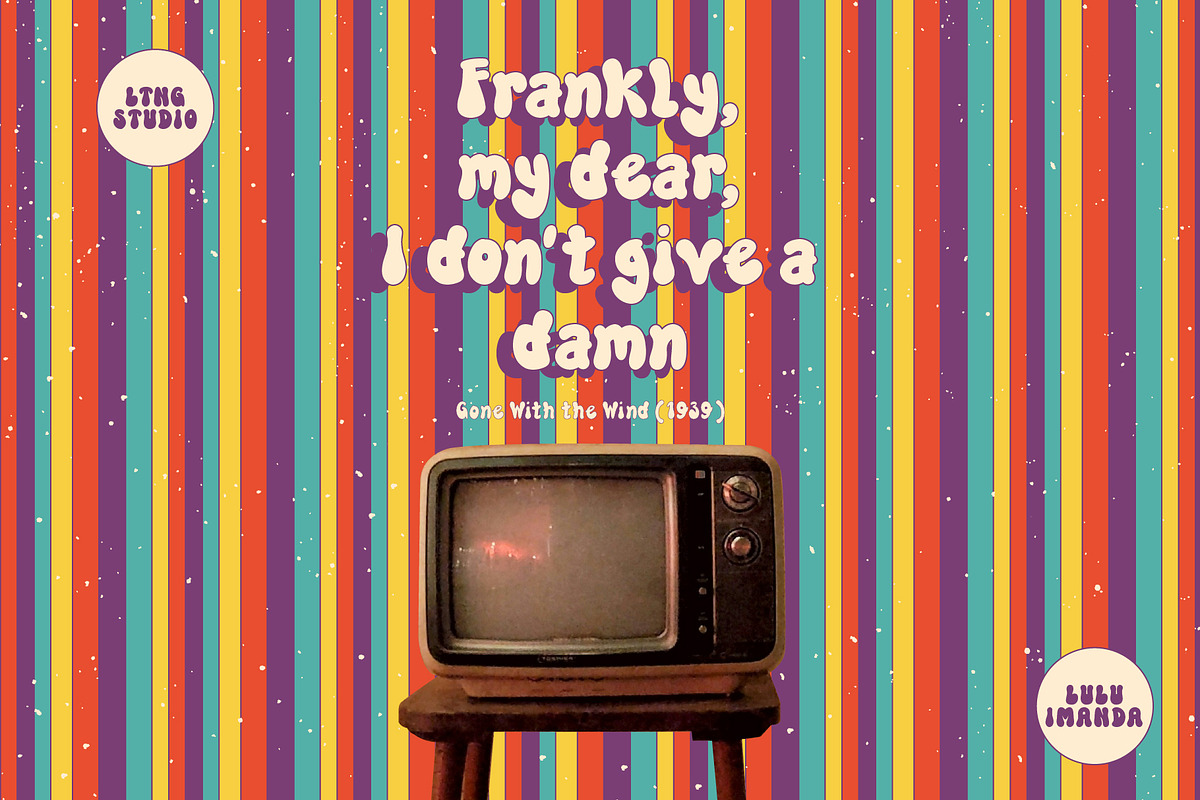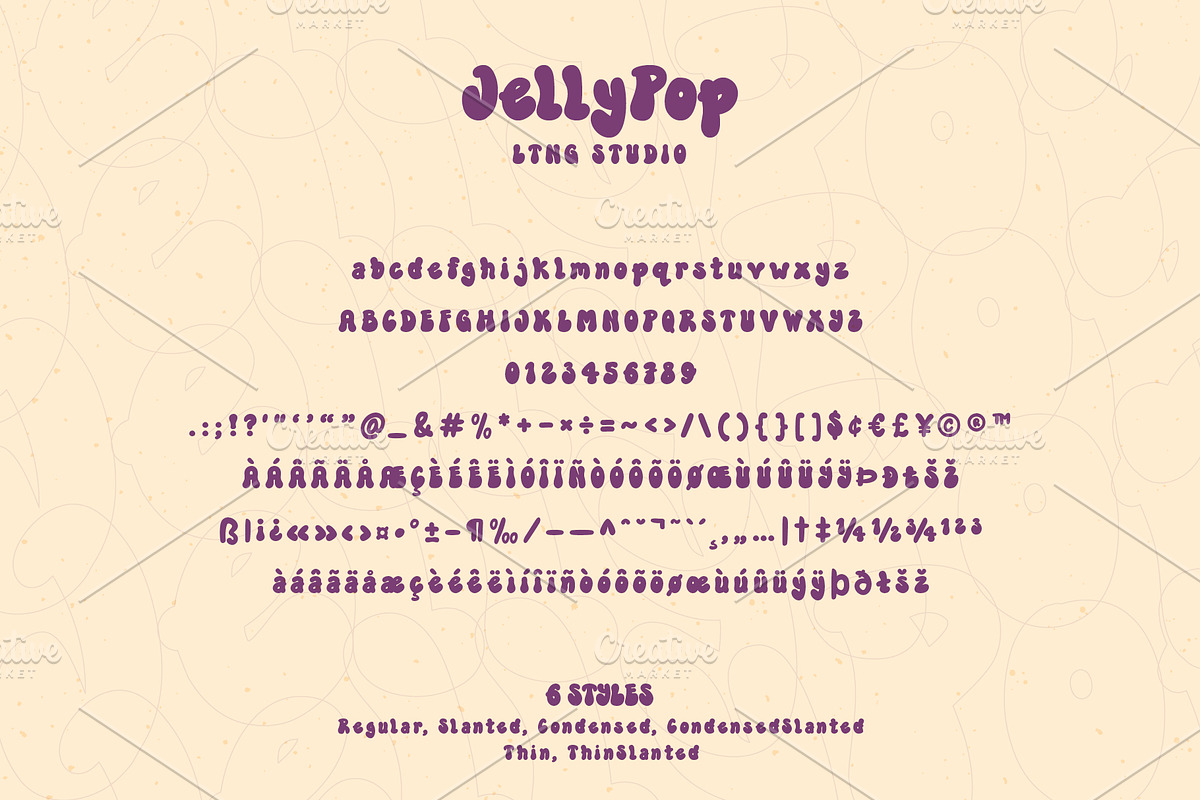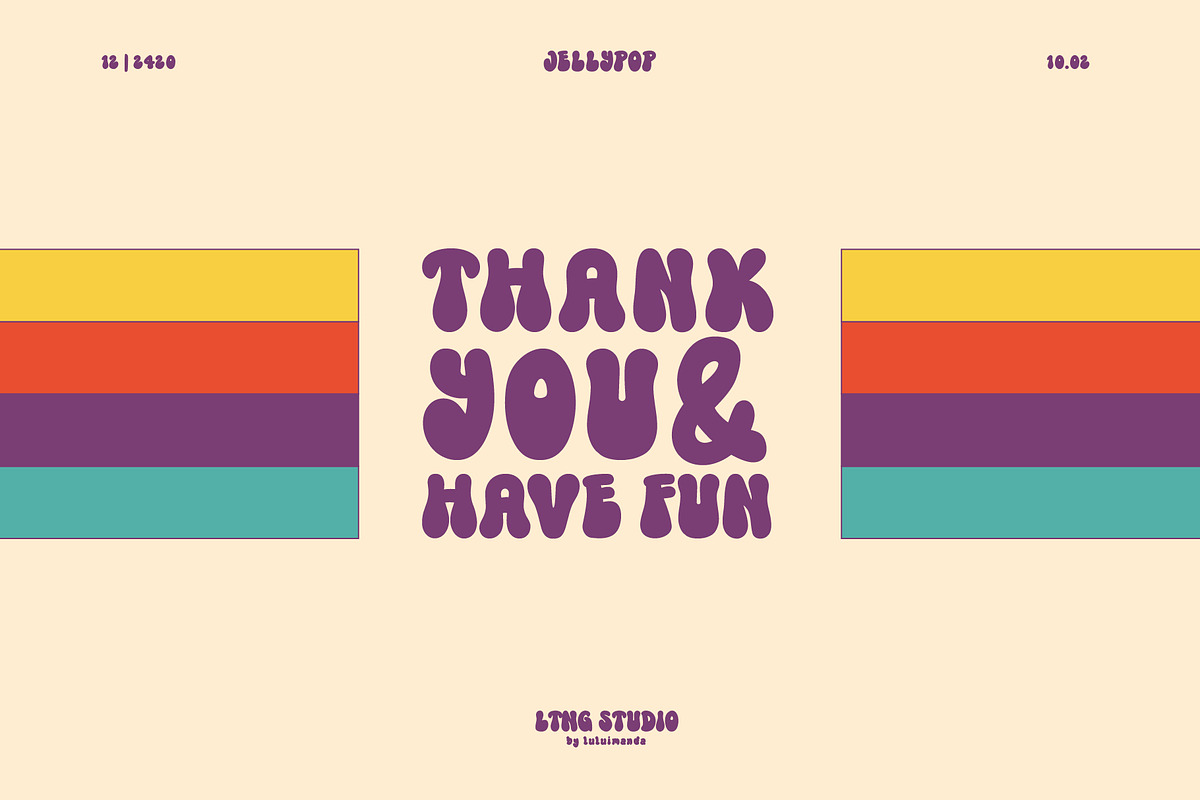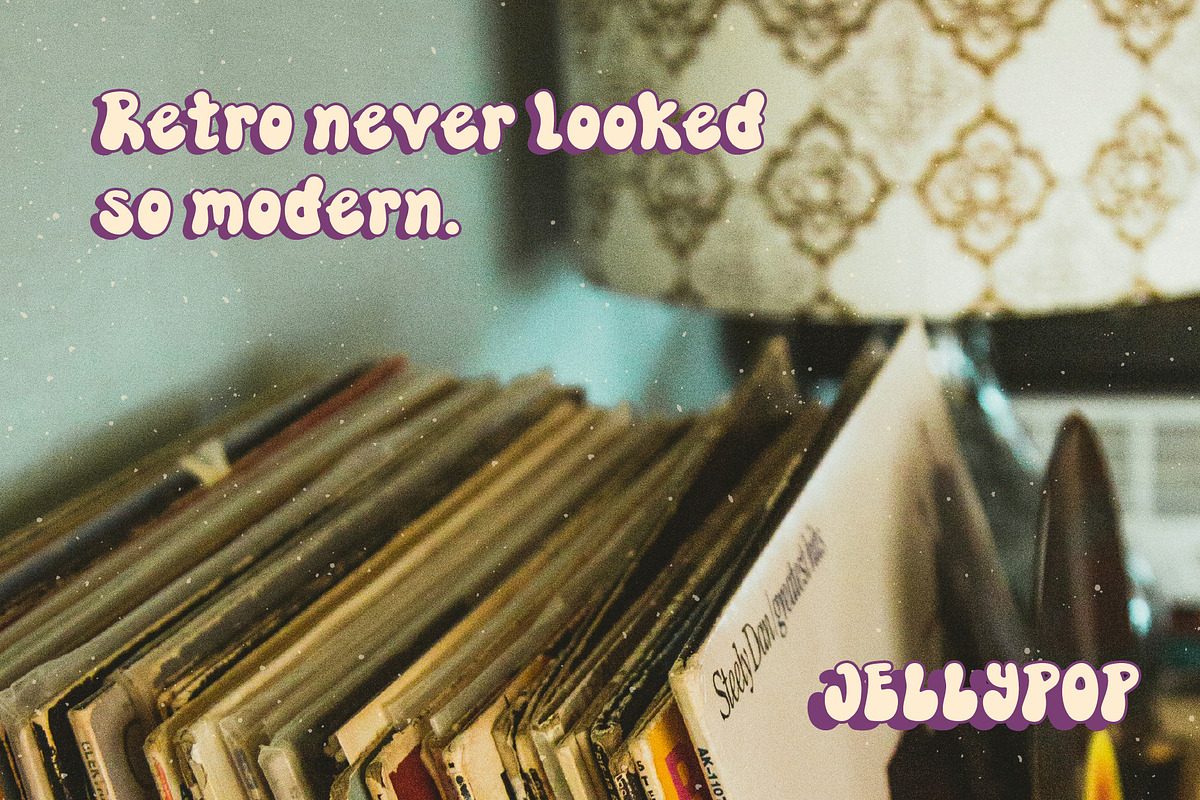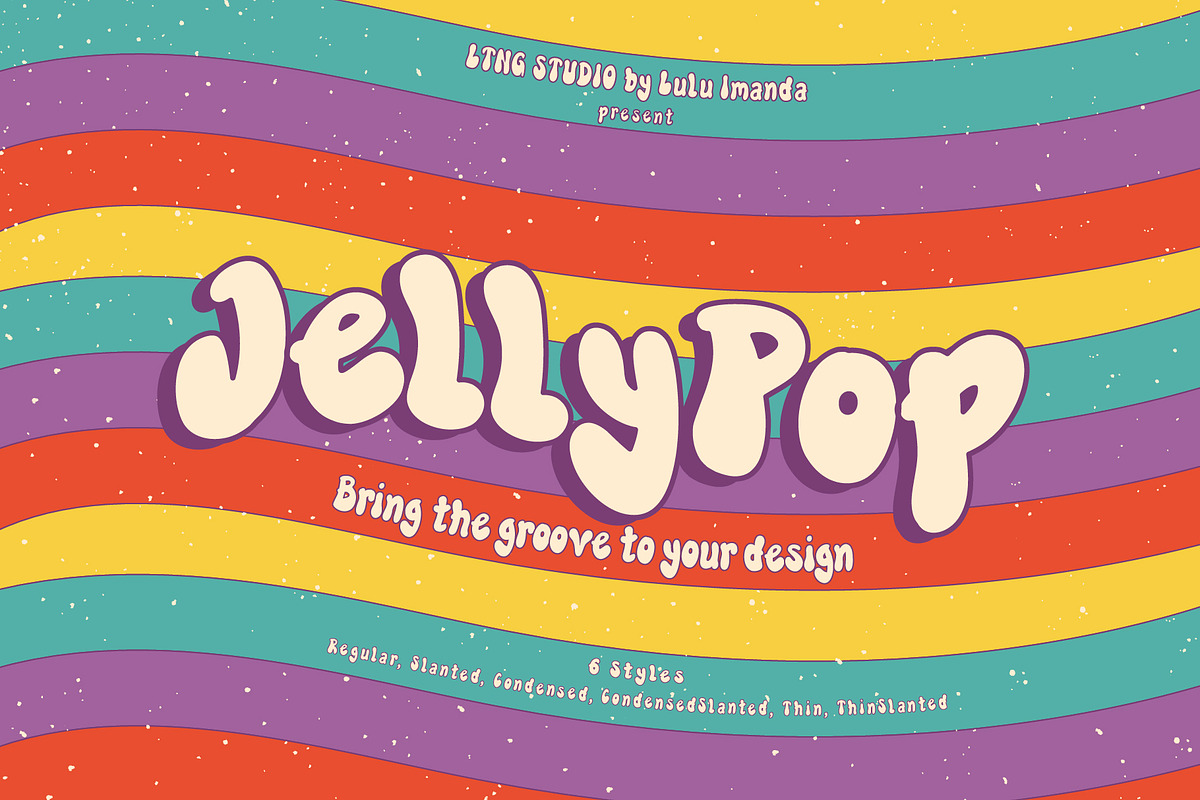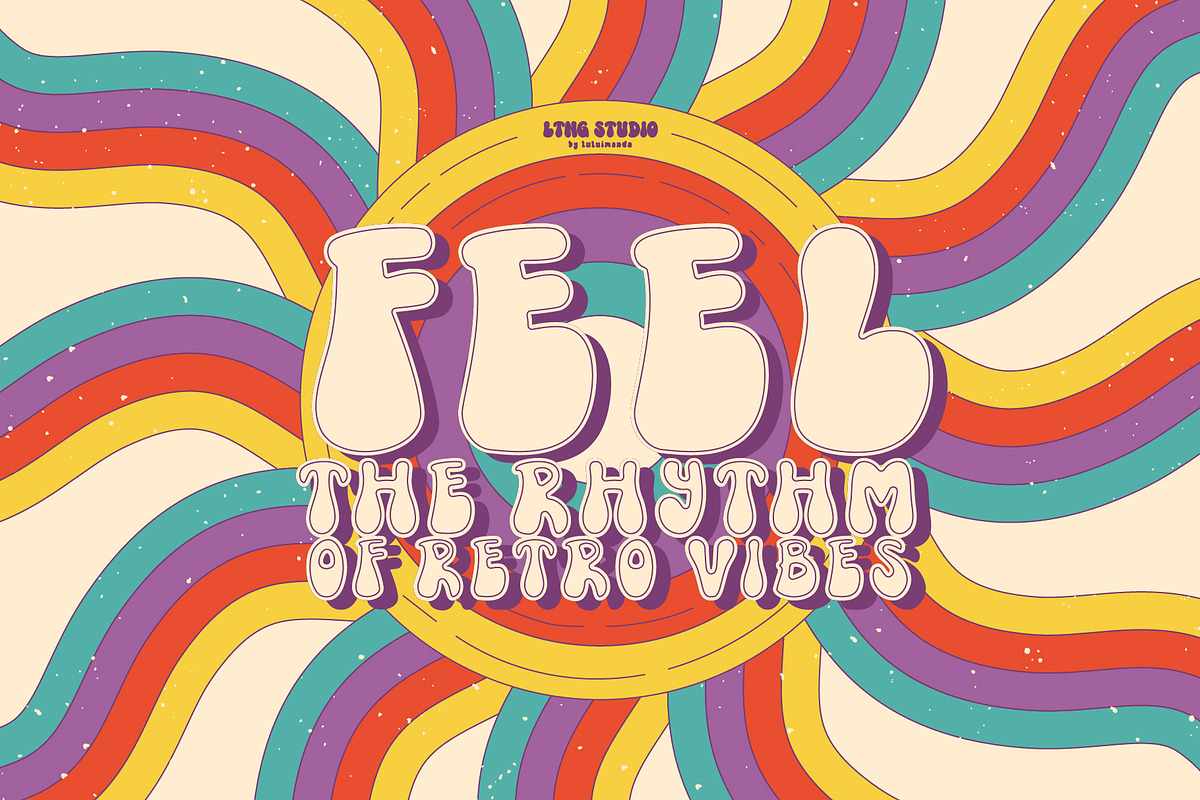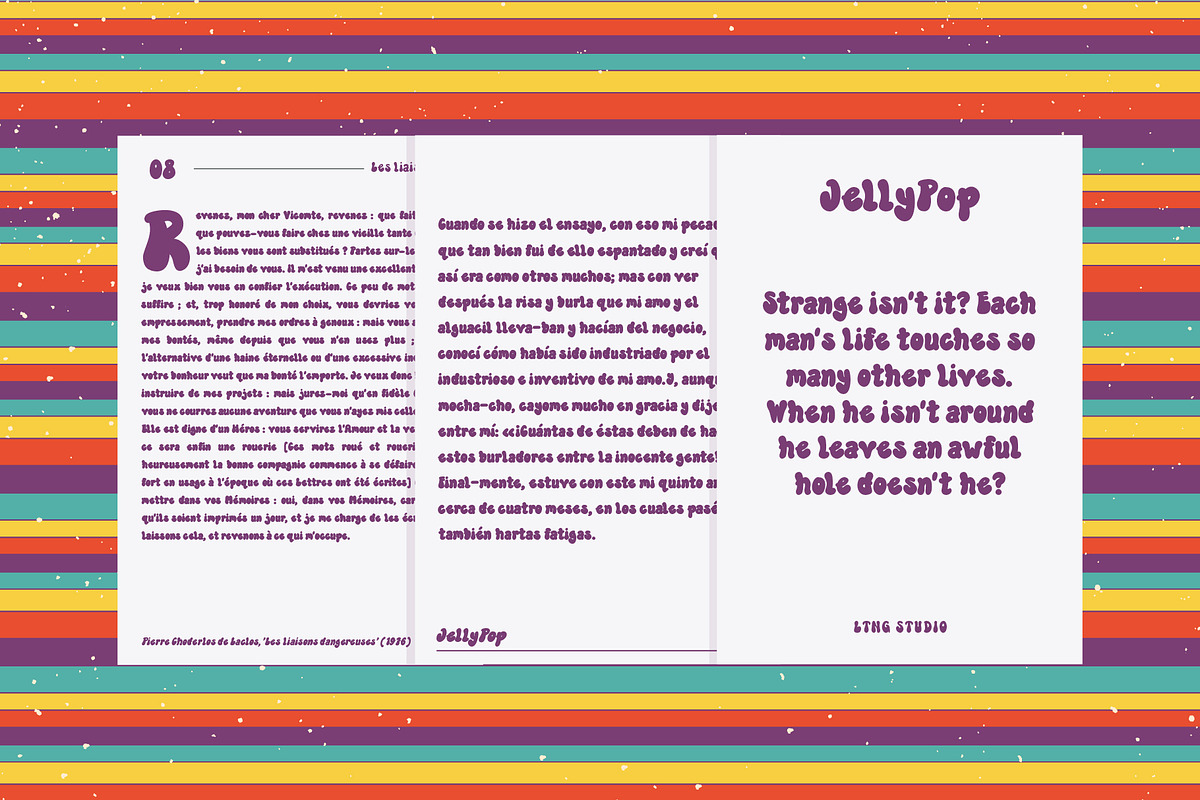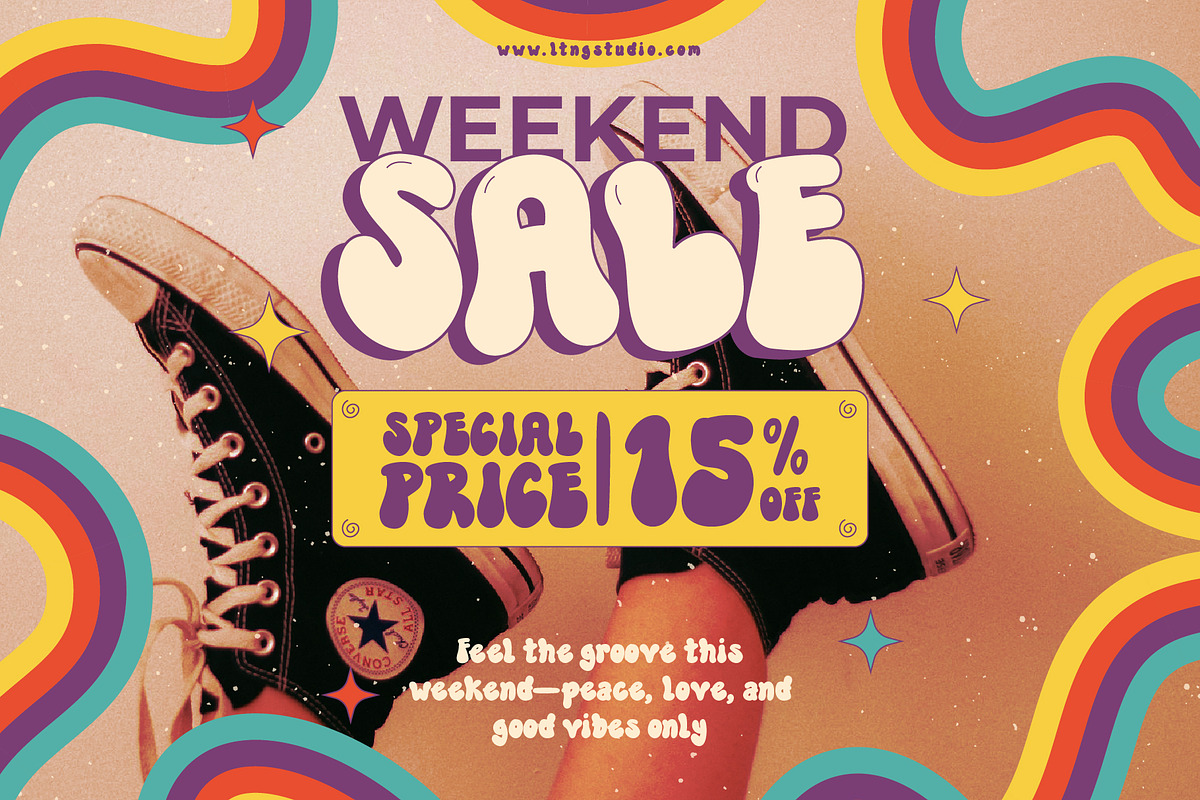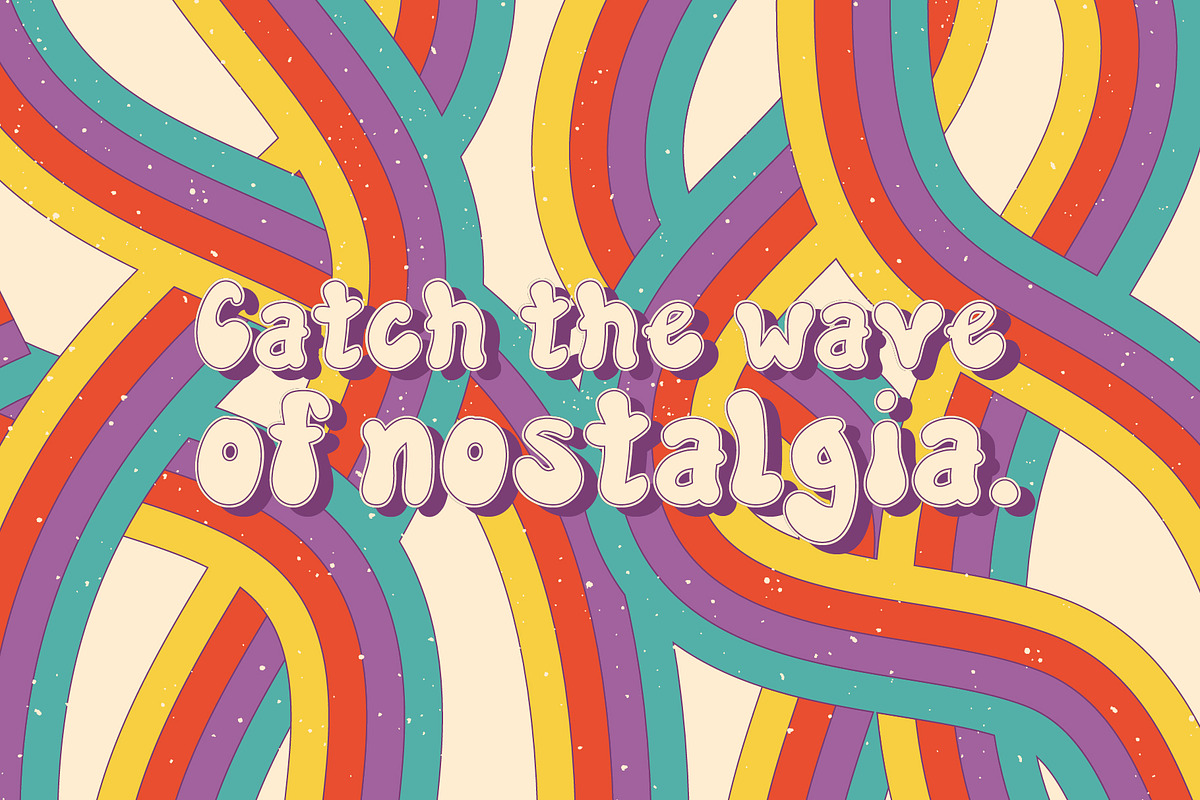
JellyPop Retro Groovy
JellyPop typeface exudes playful retro charm with its wavy, hand-drawn style and bold personality. Perfect for creating vibrant, nostalgic designs inspired by the 60s and 70s, it’s versatile enough to adapt to modern creative projects. Whether you're designing for posters, branding, album covers, or social media, this typeface will infuse your work with a funky, feel-good vibe.